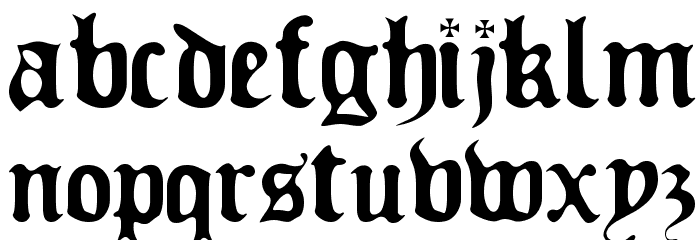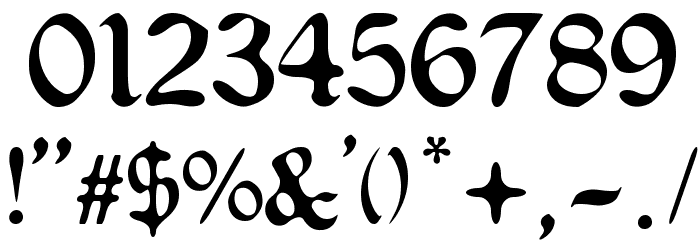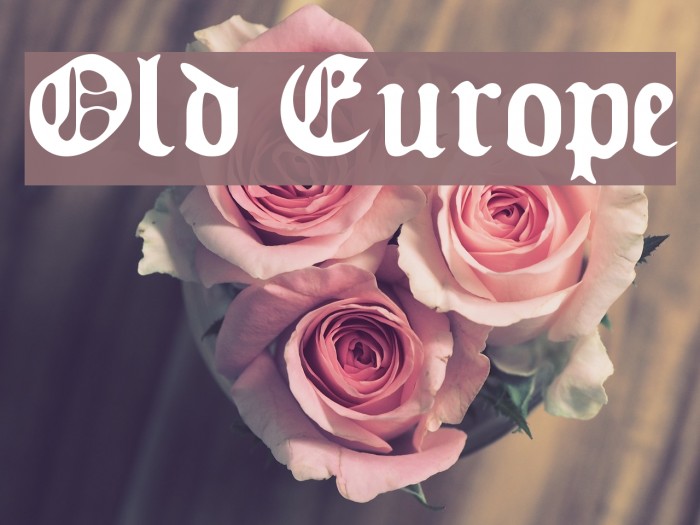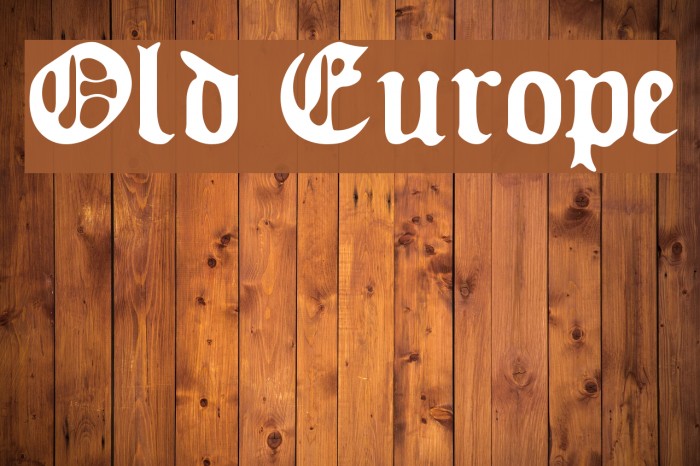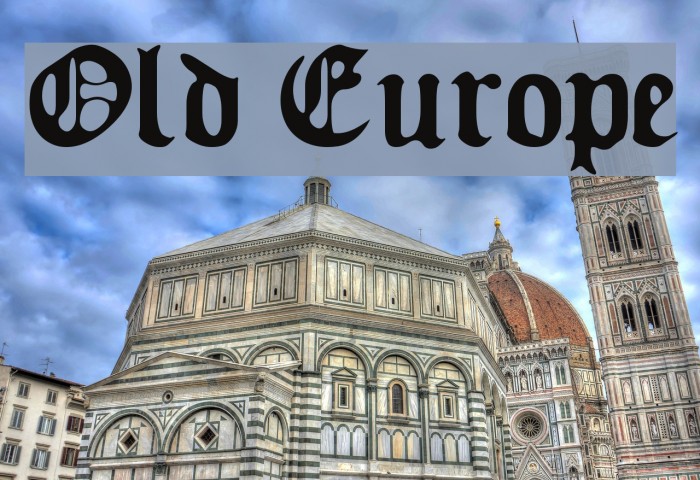
Old Europe Font
This font embodies a classic Blackletter style, reminiscent of traditional European script. The uppercase letters are ornate with sharp, angular lines and intricate details, while the lowercase letters maintain a bold and structured appearance. The numerals and special characters follow the same stylistic cues, offering a cohesive and historical aesthetic. This font is characterized by its dramatic strokes and high contrast between thick and thin lines, giving it a distinct and authoritative presence.
A classic Blackletter font with ornate, angular lines and high contrast.
- Proposed Projects: Ideal for historical documents, certificates, branding for vintage-themed products, or any project requiring a touch of medieval elegance.
- Overall Style: Vintage
- Use Case: Logos, Certificates, Branding